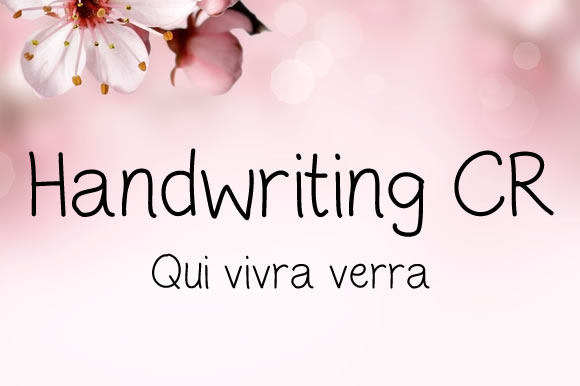
Discover the Charm of Handwriting CR Font: Elevate Your Designs with Elegance
Are you a designer, crafter, or DIY enthusiast looking for a unique and beautiful typeface to add a personal touch to your projects? Look no further than Handwriting CR Font! This stunning font is perfect for creating eye-catching headings, logos, posters, book covers, invitations, and so much more. In this article, we’ll dive into the world of Handwriting CR Font and explore its features, uses, and benefits.
What is Handwriting CR Font?
Handwriting CR Font is a gorgeous typeface that mimics the elegance and charm of handwritten script. Its flowing lines, delicate curves, and subtle imperfections make it look like it was written with a pen or pencil. This font is perfect for designers and crafters who want to add a touch of personality and whimsy to their work.
Features of Handwriting CR Font
So, what makes Handwriting CR Font so special? Here are some of its key features:
• Unique and Elegant Design: Handwriting CR Font boasts a distinctive and stylish design that will make your projects stand out from the crowd.
• Versatile: This font can be used for a wide range of applications, from headings and logos to posters, book covers, and invitations.
• Easy to Read: Despite its elegant and cursive nature, Handwriting CR Font is surprisingly easy to read, making it perfect for body text and captions.
Uses of Handwriting CR Font
Handwriting CR Font is an incredibly versatile typeface that can be used in various design projects. Here are some ideas to get you started:
• Headings and Titles: Use Handwriting CR Font to create stunning headings and titles for your blog posts, articles, and social media graphics.
• Logos and Branding: Create a unique and memorable logo for your business or brand using Handwriting CR Font.
• Posters and Flyers: Design eye-catching posters and flyers for events, promotions, and sales using this beautiful font.
• Book Covers and Invitations: Add a touch of elegance to your book covers, invitations, and greeting cards with Handwriting CR Font.
Benefits of Using Handwriting CR Font
So, why should you choose Handwriting CR Font for your design projects? Here are some benefits:
• Adds Personality and Whimsy: Handwriting CR Font adds a personal touch to your designs, making them more engaging and memorable.
• Enhances Creativity: This font inspires creativity and imagination, allowing you to experiment with different design ideas and styles.
• Professional and Elegant: Despite its handwritten nature, Handwriting CR Font exudes professionalism and elegance, making it perfect for business and commercial projects.
Tips and Tricks for Using Handwriting CR Font
To get the most out of Handwriting CR Font, here are some tips and tricks:
• Experiment with Colors and Textures: Try pairing Handwriting CR Font with different colors and textures to create unique and eye-catching designs.
• Mix and Match with Other Fonts: Combine Handwriting CR Font with other fonts to create interesting and dynamic typography.
• Pay Attention to Kerning and Spacing: Adjust the kerning and spacing of Handwriting CR Font to ensure it looks elegant and refined.
Font Name Handwriting CR Font
Author Julia Fang
In conclusion, Handwriting CR Font is a beautiful and versatile typeface that can elevate your designs with elegance and charm. Whether you’re a designer, crafter, or DIY enthusiast, this font is perfect for adding a personal touch to your projects. With its unique features, versatility, and benefits, Handwriting CR Font is sure to become a favorite in your design toolkit.